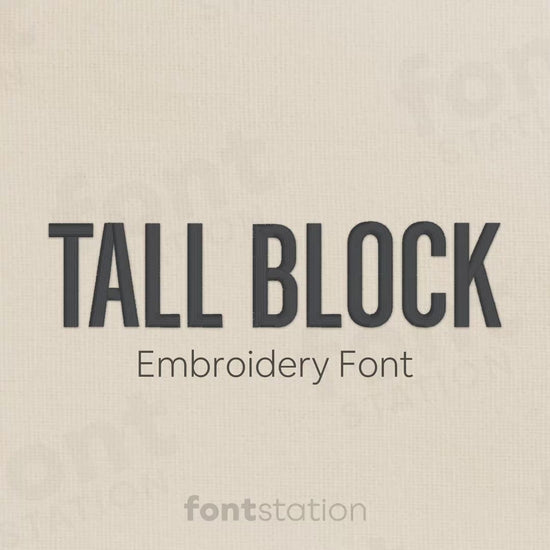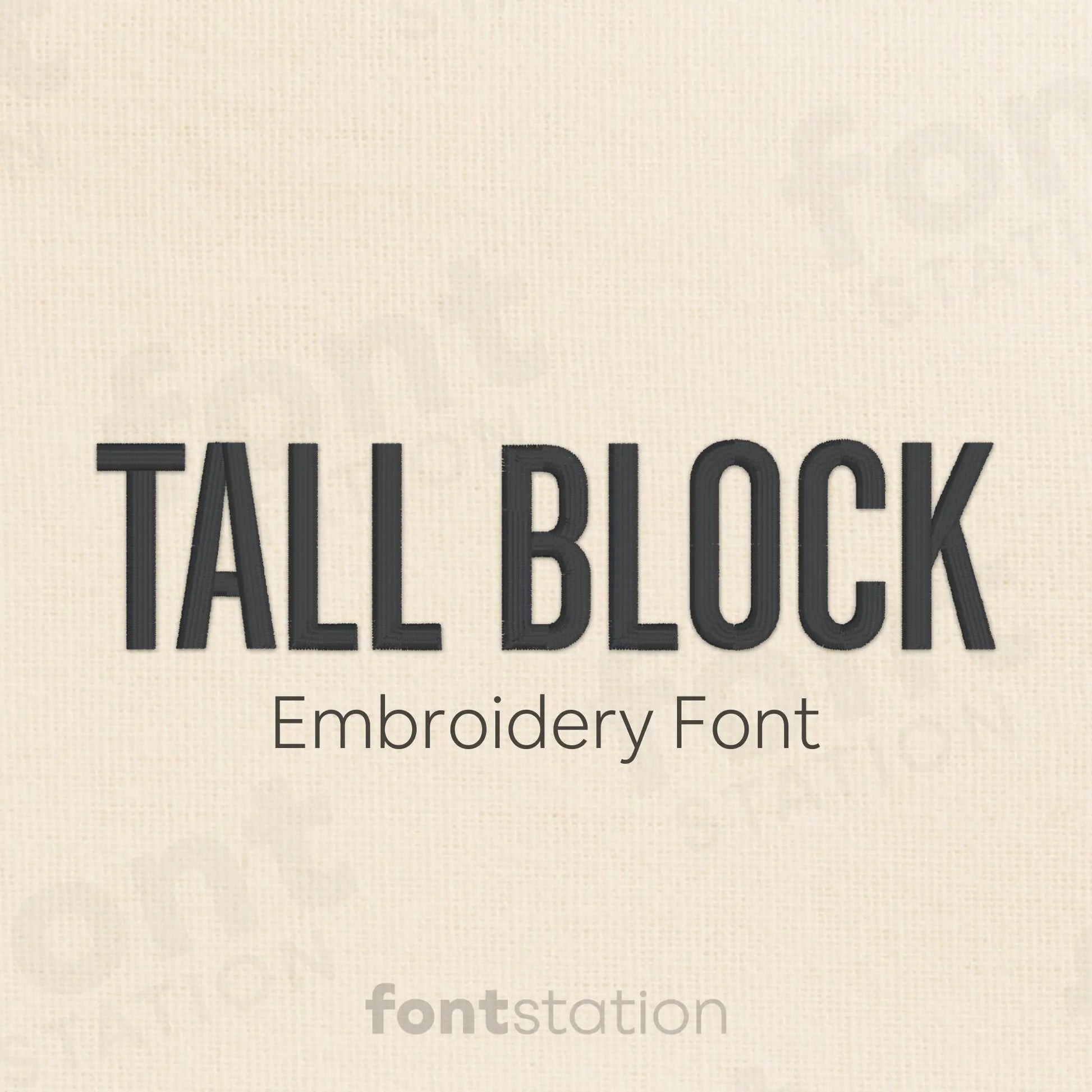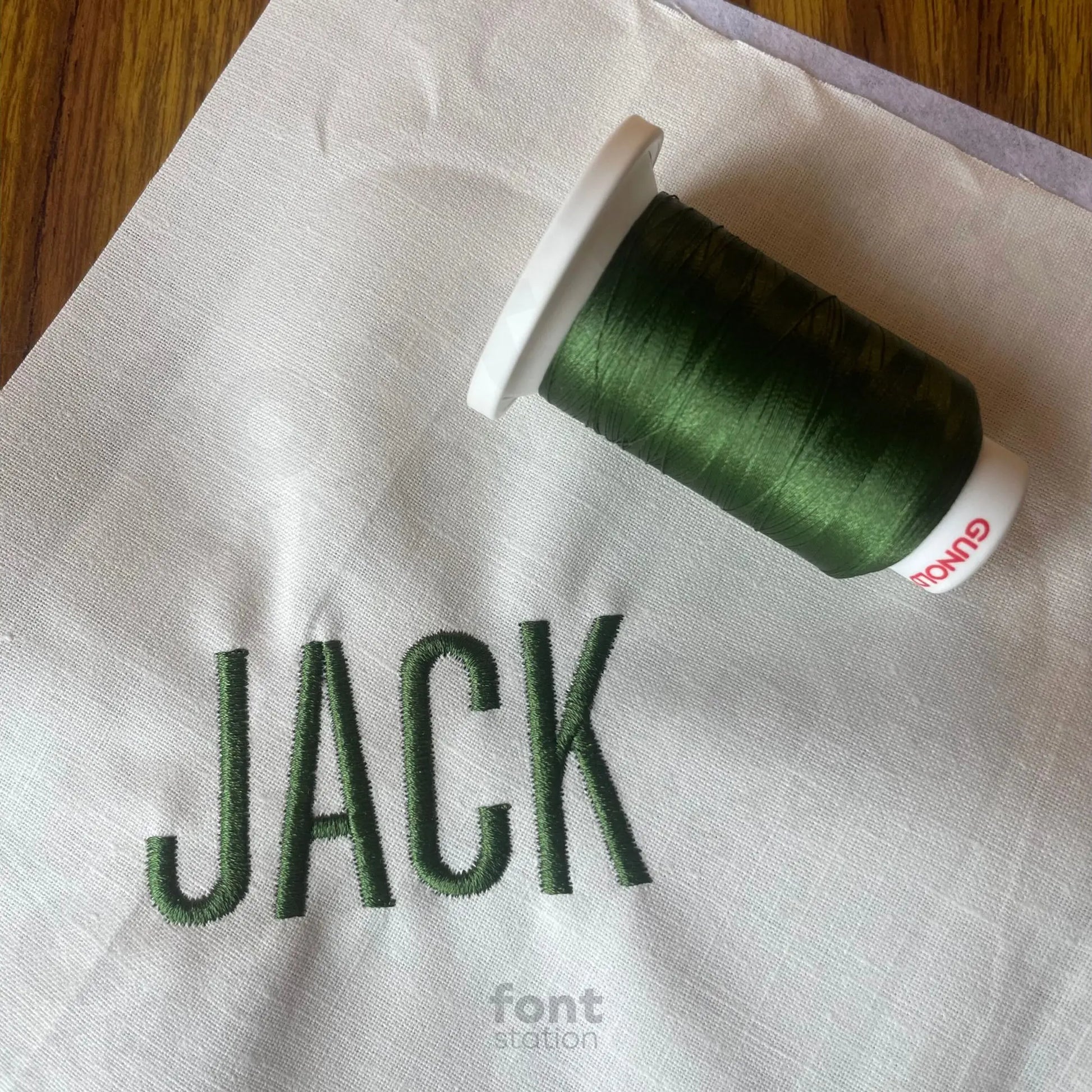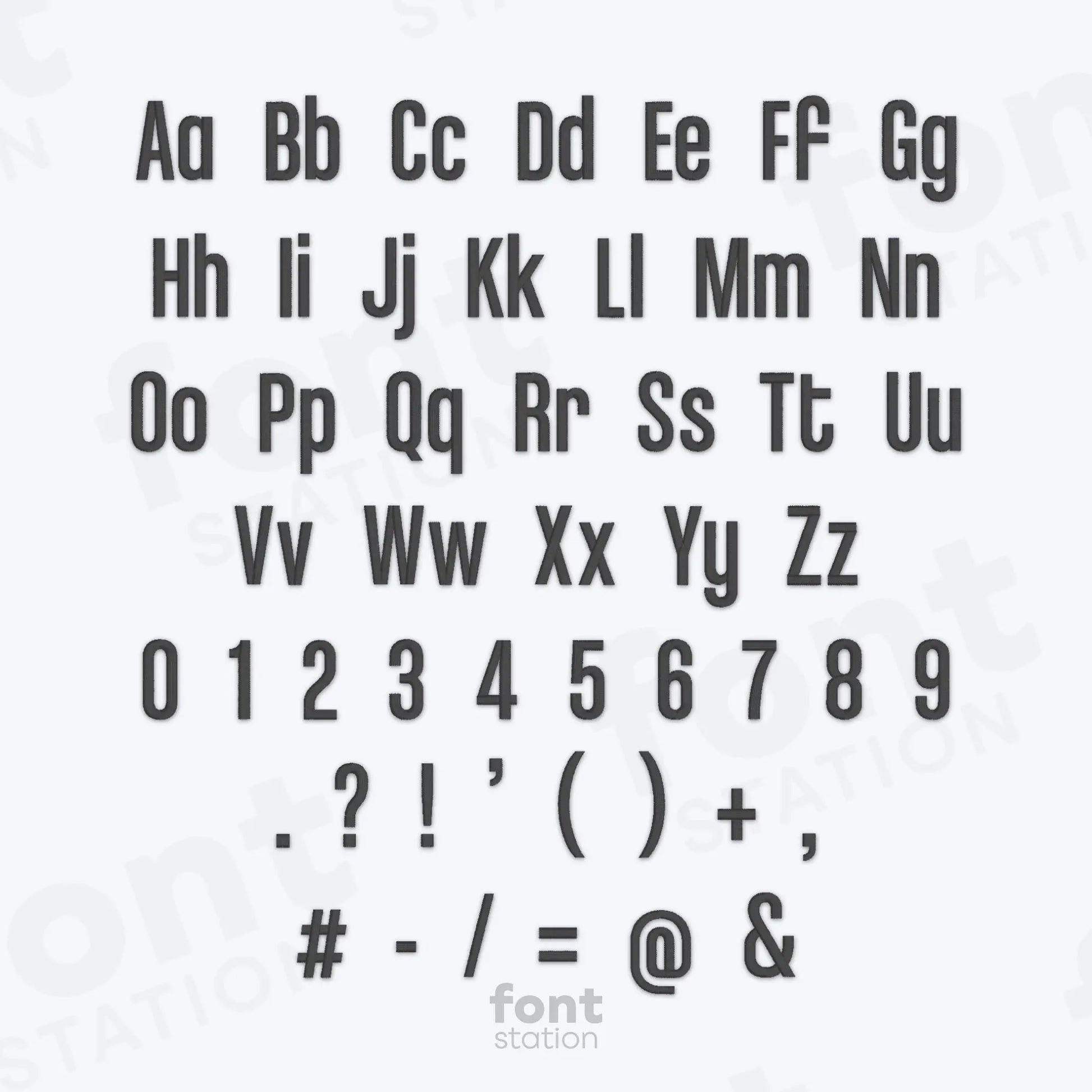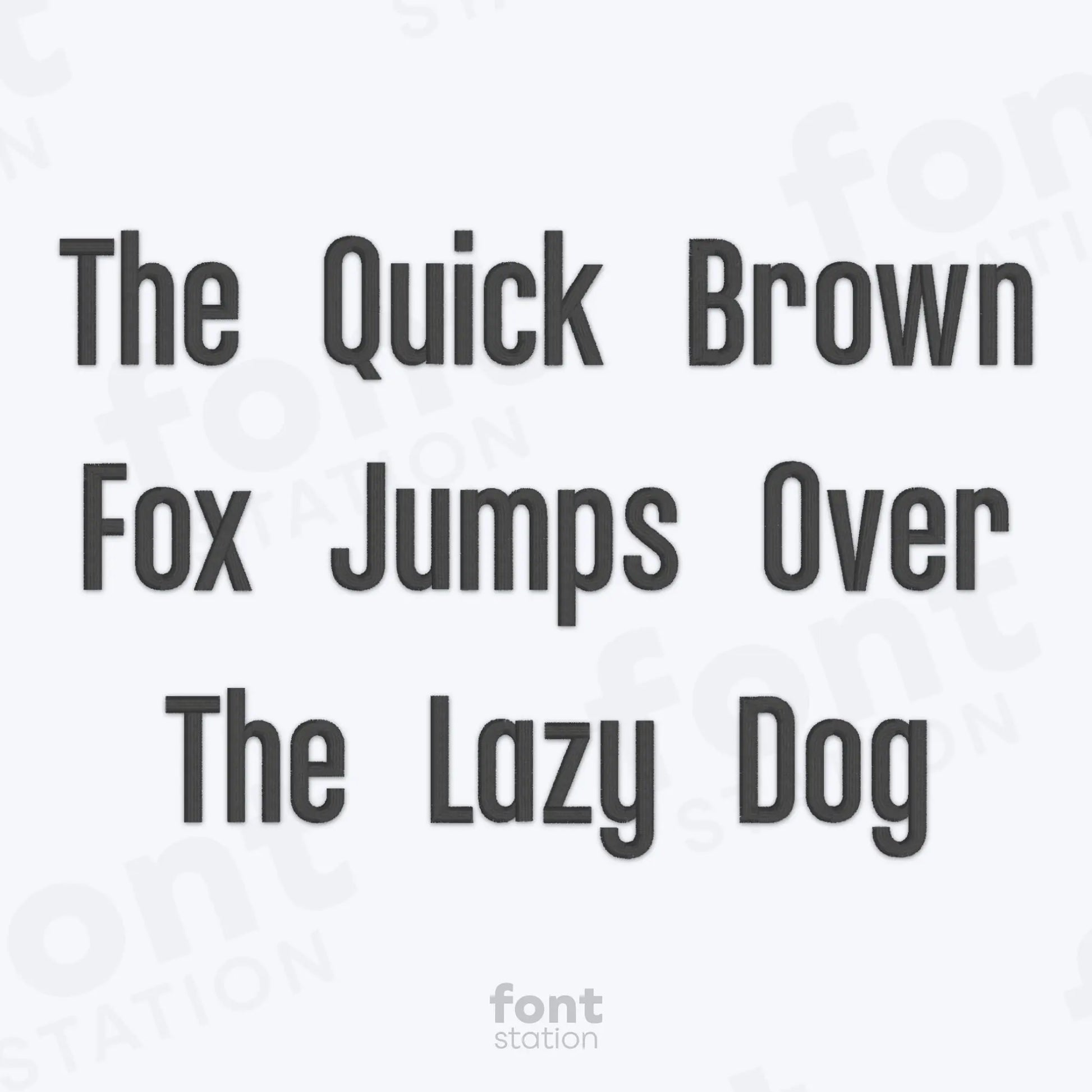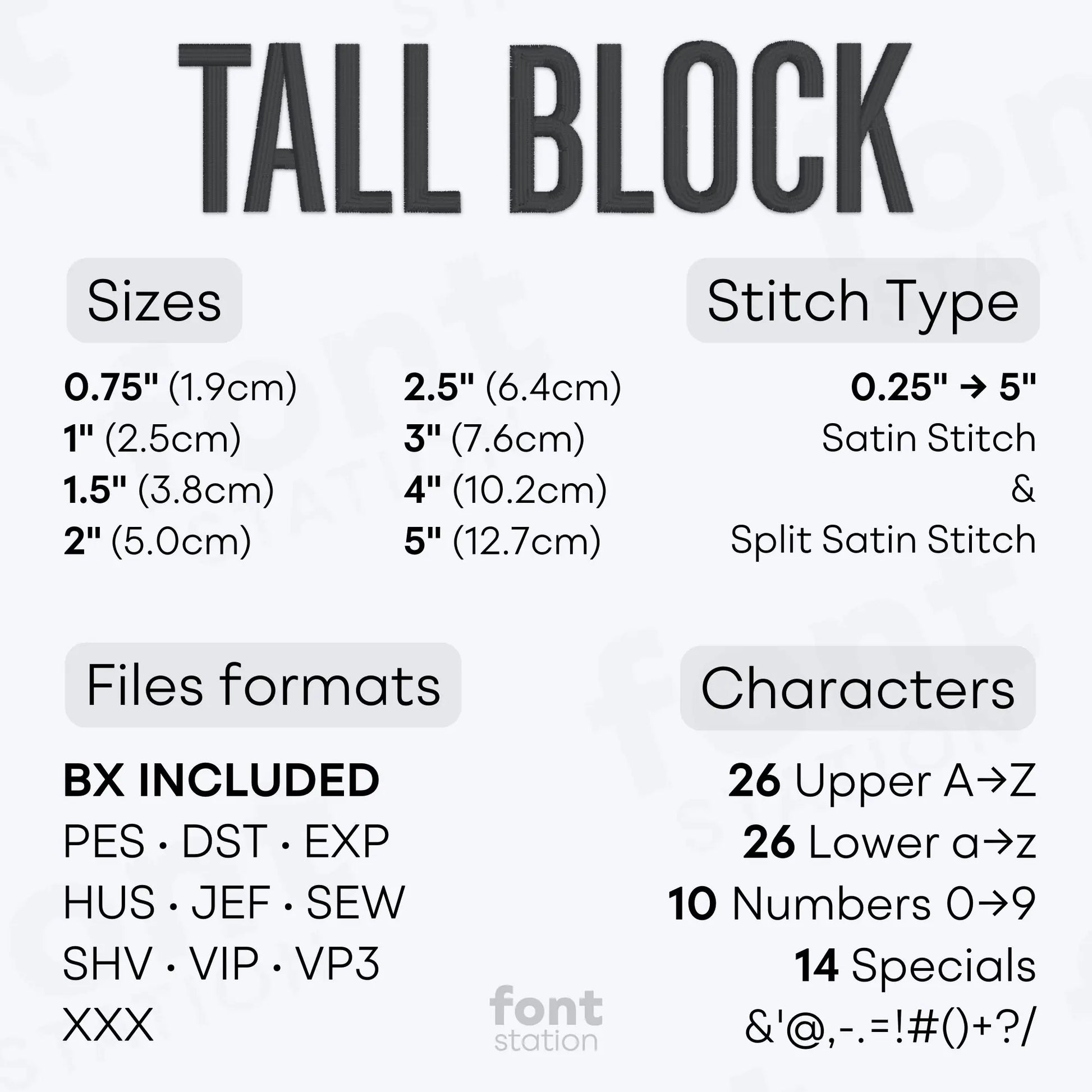
Tall Block Embroidery Font
Introducing our Tall Block embroidery font, a modern Sans Serif alphabet with clean letters that stitch beautifully on your embroidery machine. Ideal for sleek designs and any professional project.
About the Tall Block Embroidery Font
Our Tall Block embroidery font brings a clean, modern Sans Serif look to your embroidery projects.
This bold and versatile machine embroidery font features a tall, straight Sans Serif alphabet perfect for modern monograms, name tags, labels, and sleek lettering designs. Its crisp, minimal style makes it ideal for both personal and professional embroidery projects.